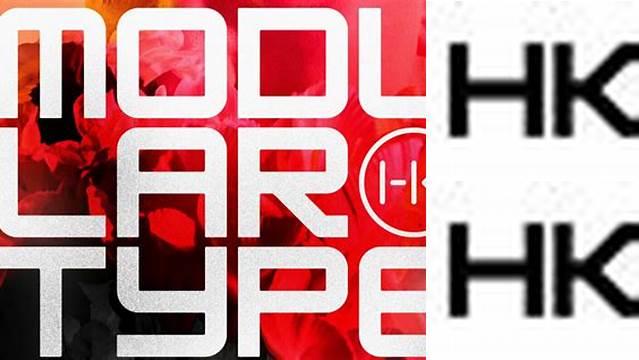
Hey guys! Looking for a fresh, modern font to spice up your designs? You've come to the right place! Today, we're diving deep into the world of the HK Modular Rounded Bold Font and, the best part, how you can snag it for free. Whether you're a seasoned designer or just starting out, this font is a fantastic addition to your toolkit. Letβs explore all the awesome things you can do with it and where to get your hands on this gem.
HK Modular Font Family Overview
The HK Modular font family is known for its clean lines and modern aesthetic. This makes it super versatile for a variety of projects. The rounded bold version, in particular, brings a friendly and approachable vibe. It's perfect for headlines, logos, and branding materials that need to make a statement without being too aggressive. Think of it as the cool, confident friend you want by your side.
Understanding Rounded Fonts
What makes a rounded font so special? Well, the soft edges give it a more approachable and less formal feel compared to fonts with sharp corners. Rounded fonts often convey a sense of warmth, friendliness, and modernity, making them ideal for designs that aim to connect with audiences on a personal level. The HK Modular Rounded Bold takes these characteristics and amplifies them, creating a visual impact that's both strong and inviting.
The Appeal of Bold Fonts
Bold fonts are all about making a statement. They grab attention and ensure your message is seen. In the case of HK Modular Rounded Bold, the bold weight adds emphasis and presence, making it perfect for headlines, titles, and anything else you want to stand out. It's like the spotlight of the font world, ensuring your text gets noticed.
Using HK Modular Rounded Bold in Graphic Design
So, you've got the font, now what? Using HK Modular Rounded Bold in graphic design opens up a world of possibilities. Its clean, modern look makes it suitable for everything from website headers and social media graphics to print materials like posters and brochures. The key is to use it strategically to enhance your message and create a cohesive visual identity.
Font Pairing Suggestions for HK Modular Rounded Bold
Font pairing is an art, guys. The right combination can elevate your design, while the wrong one can make it look messy. For HK Modular Rounded Bold, consider pairing it with a lighter, simpler sans-serif for body text. Think along the lines of Open Sans or Lato. Alternatively, a classic serif like Merriweather can create a sophisticated contrast. Experiment and see what works best for your project!
HK Modular Rounded Bold for Web Design
In web design, readability is king. HK Modular Rounded Bold can be used effectively for headings and subheadings to draw users' attention to important information. Just be mindful of load times β using too many bold fonts can slow down your site. Optimize the font files and use CSS to control the font weight for a smoother user experience.
Creating Logos with HK Modular Rounded Bold
Looking to create a memorable logo? Creating logos with HK Modular Rounded Bold is a smart move. Its distinctive look can help your brand stand out. Consider customizing the font slightly to make it unique to your brand. Play with letter spacing, kerning, and even create custom ligatures for a truly bespoke logo.
Using HK Modular Rounded Bold in Branding Materials
Consistency is key in branding. Using HK Modular Rounded Bold in branding materials helps create a cohesive visual identity across all your marketing channels. From business cards and letterheads to social media profiles and email templates, using the same font reinforces brand recognition and builds trust with your audience.
HK Modular Rounded Bold for Print Design
Print design requires a different approach than web design. Ensure your font is legible at the intended print size. HK Modular Rounded Bold works well for posters, flyers, and brochures, but always double-check the final output to ensure everything looks crisp and clear. Use a high-resolution version of the font to avoid pixelation.
Staying Updated with Font Trends
Font trends come and go, but it's important to stay informed. Staying updated with font trends can help you create designs that are fresh and relevant. Follow design blogs, attend industry events, and experiment with new fonts to stay ahead of the curve. However, don't blindly follow trends β choose fonts that align with your brand and message.